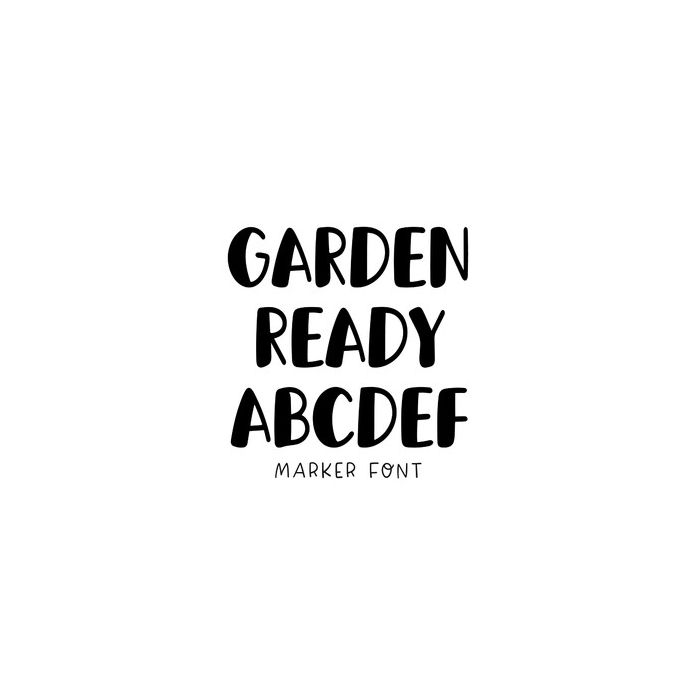
Garden Ready is a bold marker handwriting font. This font is perfect for goodnotes and other handwriting projects! This is a tall version of our font Chalk Eraser.